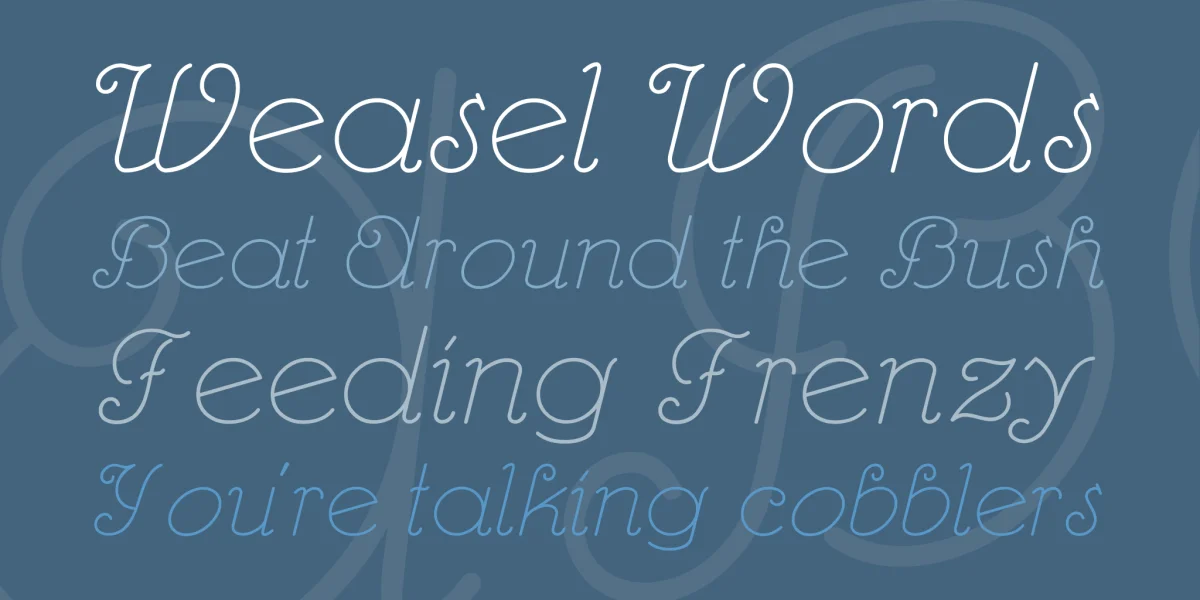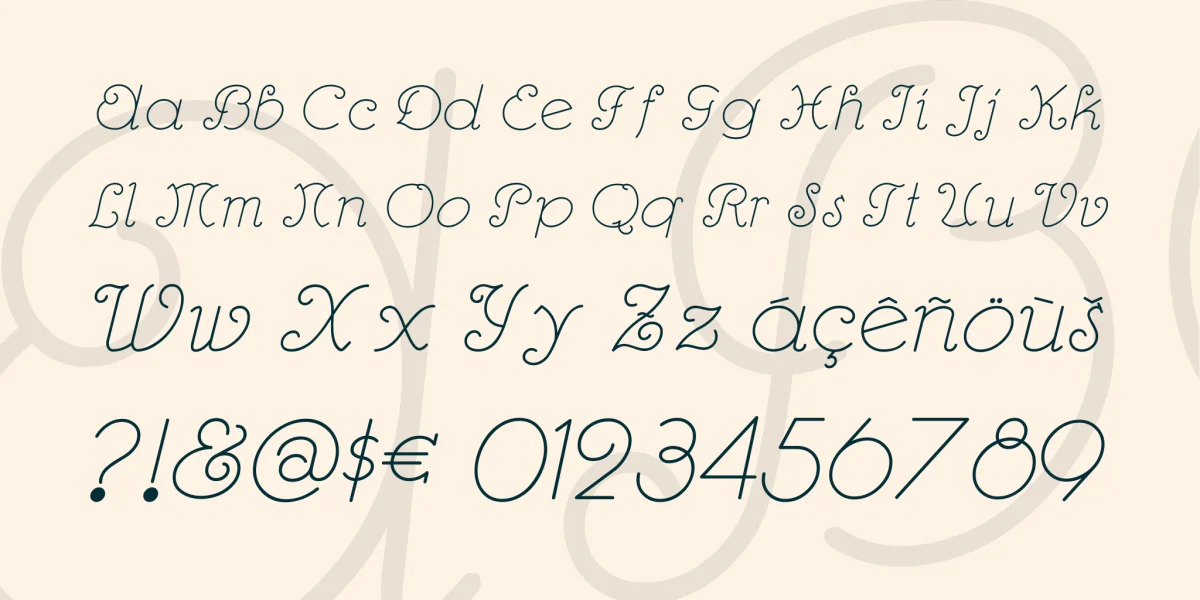
Here’s a fancy, dancy, light-hearted font, based on a 1922 work by German type designer E. Deutsch, originally entitled Tango Italic. My version is named after a different dance, but it’s the same idea. Suitable for fun or formal occasions.